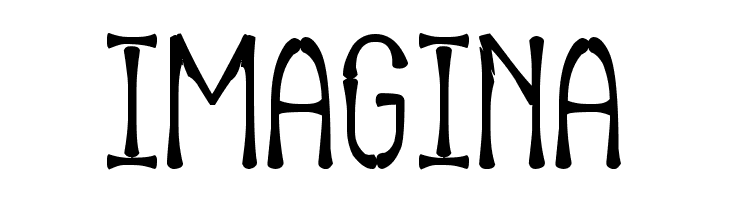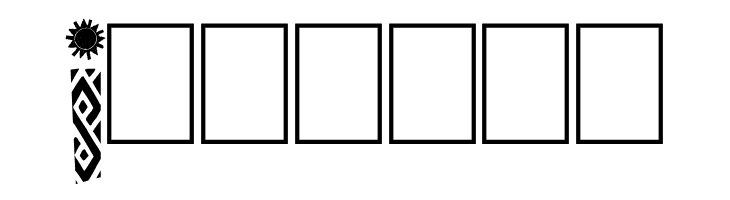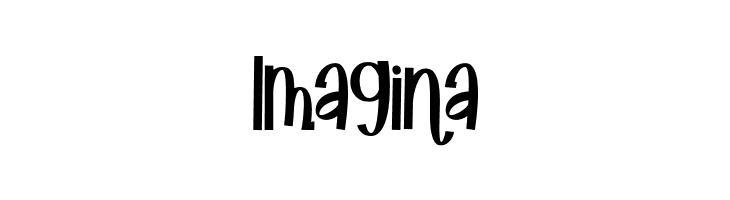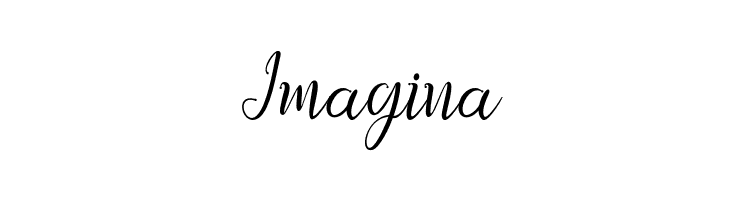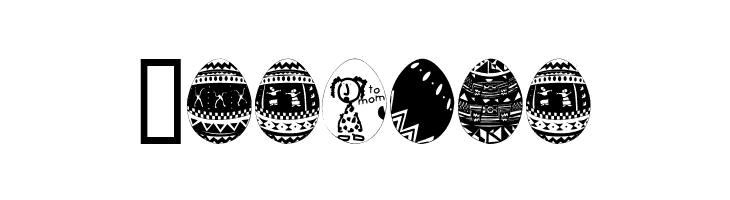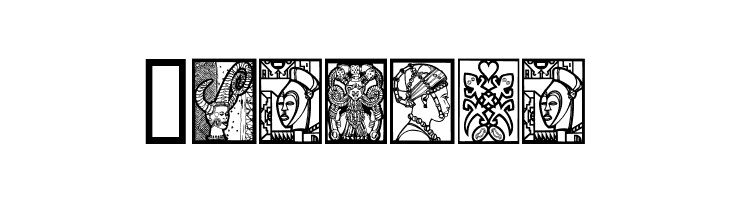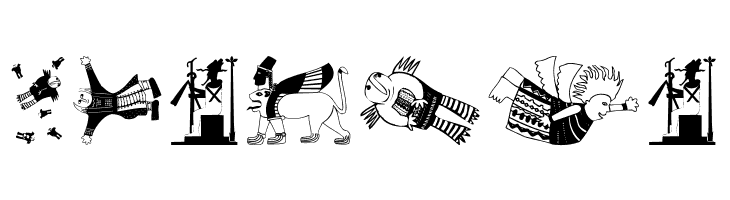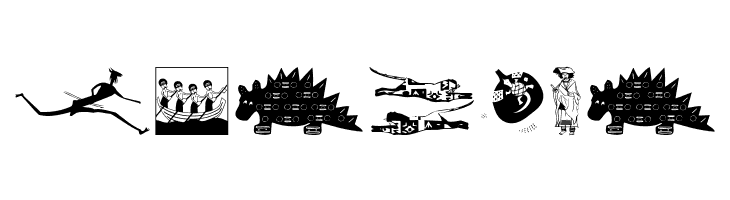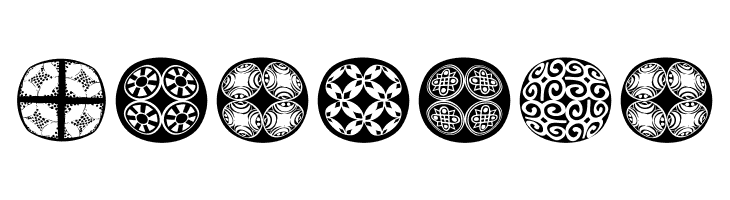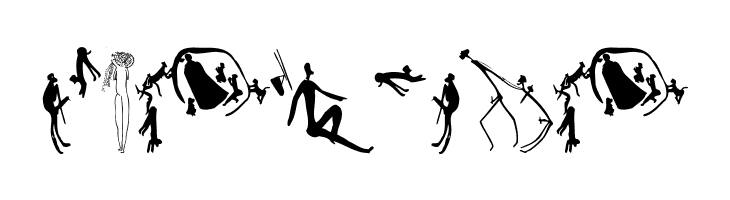
A playful and whimsical font with bold, tall letters and a dynamic slant.
A bold, decorative font inspired by traditional African patterns.
Decorative font with African and spiritual icon illustrations.
A decorative collection of symbols inspired by traditional African artifacts.
Ornate, African-inspired decorative font with illustrated motifs.
Ornamental display font with illustrated egg motifs for each character.
A decorative font inspired by African art, featuring intricate and stylized glyphs.
A decorative collection of African-inspired symbols and patterns.
Ornamental symbol font featuring African-inspired illustrations.
Pictographic, tribal-inspired decorative font with hand-drawn symbols in black circles.
Pattern-based decorative set with African-inspired motifs.
Pictogram font featuring African tribal motifs and animals.
Bold, geometric African-inspired symbol set with high contrast.
An artistic and decorative font inspired by African art, featuring intricate and abstract designs.
Hand-drawn, illustrated font with unique portraits for each character.
Ornamental, African-inspired circular display font with bold contrast.
A decorative font with African-inspired patterns and silhouettes.
Primitive, hand-drawn glyphs reminiscent of ancient rock art.
A playful, hand-drawn font with uneven strokes and a whimsical style.
A bold, decorative font with a unique patterned fill, perfect for eye-catching designs.
A bold, geometric font with a dynamic and modern style.
Animal silhouette font with African wildlife motifs.
An elegant script font with flowing, decorative cursive letters.
A graceful script font with flowing, cursive letters and elegant swirls.
A bold and flowing script font with high contrast and elegant cursive style.
A bold, expressive script font with fluid strokes and high contrast.
A decorative font featuring African-inspired symbols and illustrations.
Decorative font mimicking African cave drawing motifs.
A playful, textured font with a hand-drawn, crayon-like appearance.
A bold, textured font with a distressed, vintage appearance.